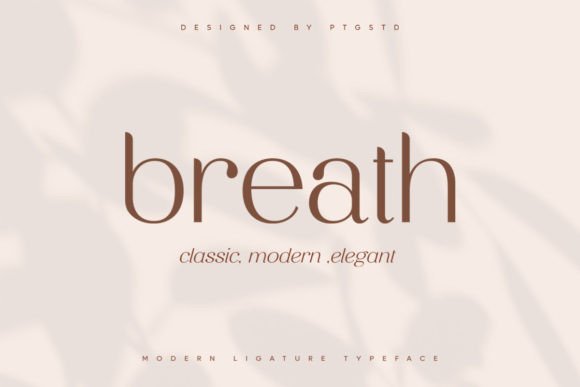
Are you looking for the perfect font to add a touch of elegance and sophistication to your designs? Look no further than Breath Font, the best font for wedding vows! Created by Pentagonistudio, this stylish serif font is defined by smooth curves and is the perfect choice for fashion branding or editorial designs.
Breath Font is more than just a font - it's a statement piece that will elevate your designs to the next level. With its endless possibilities, you'll be able to create stunning designs that are sure to capture the attention of your audience.
One of the key features of Breath Font is its PUA encoding, which means that you can access all glyphs and swashes with ease. This makes it incredibly versatile and perfect for a wide range of design projects.
Whether you're creating wedding invitations, editorial designs, or fashion branding materials, Breath Font is the perfect choice. Its elegant and sophisticated style is sure to make a lasting impression on anyone who sees it.